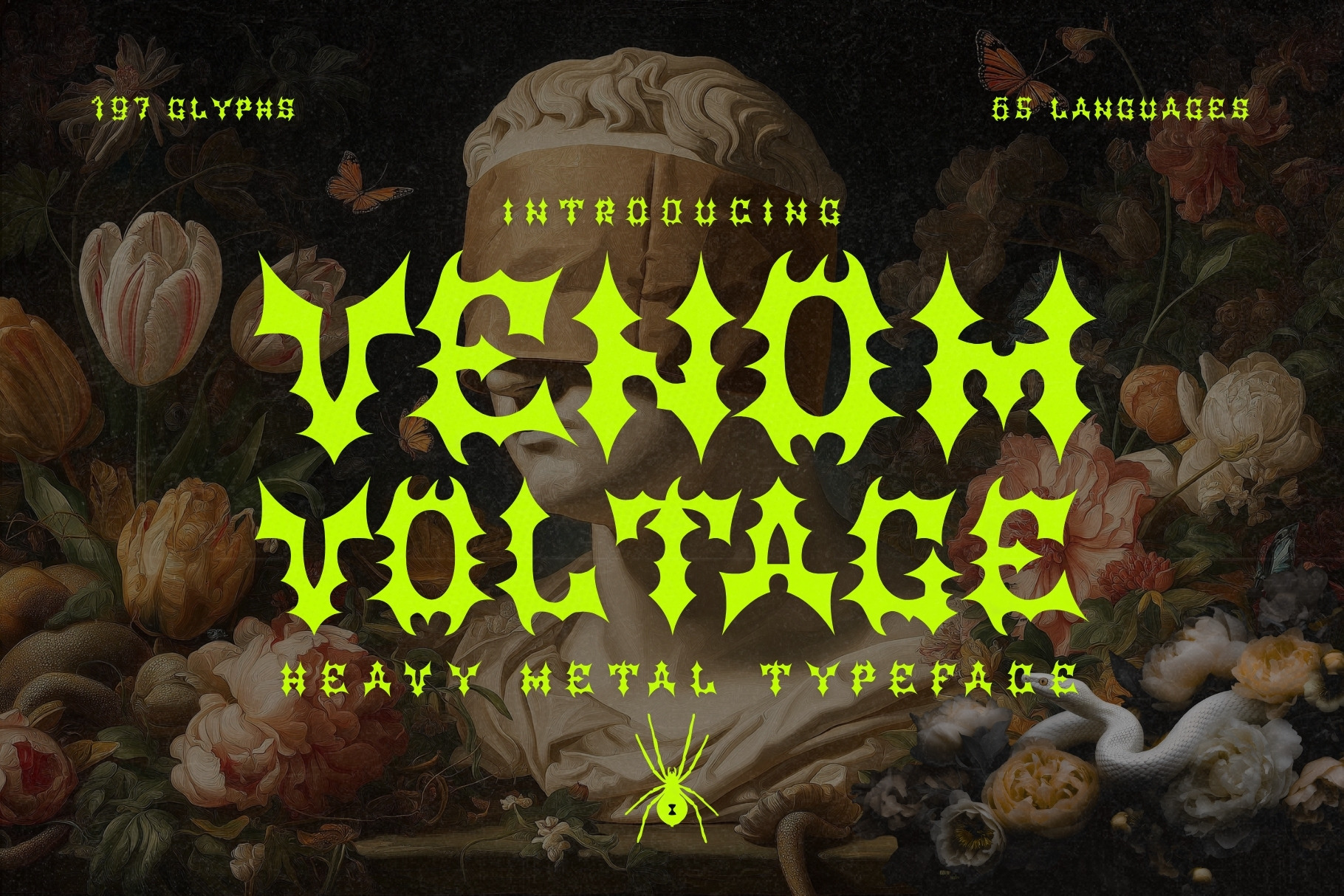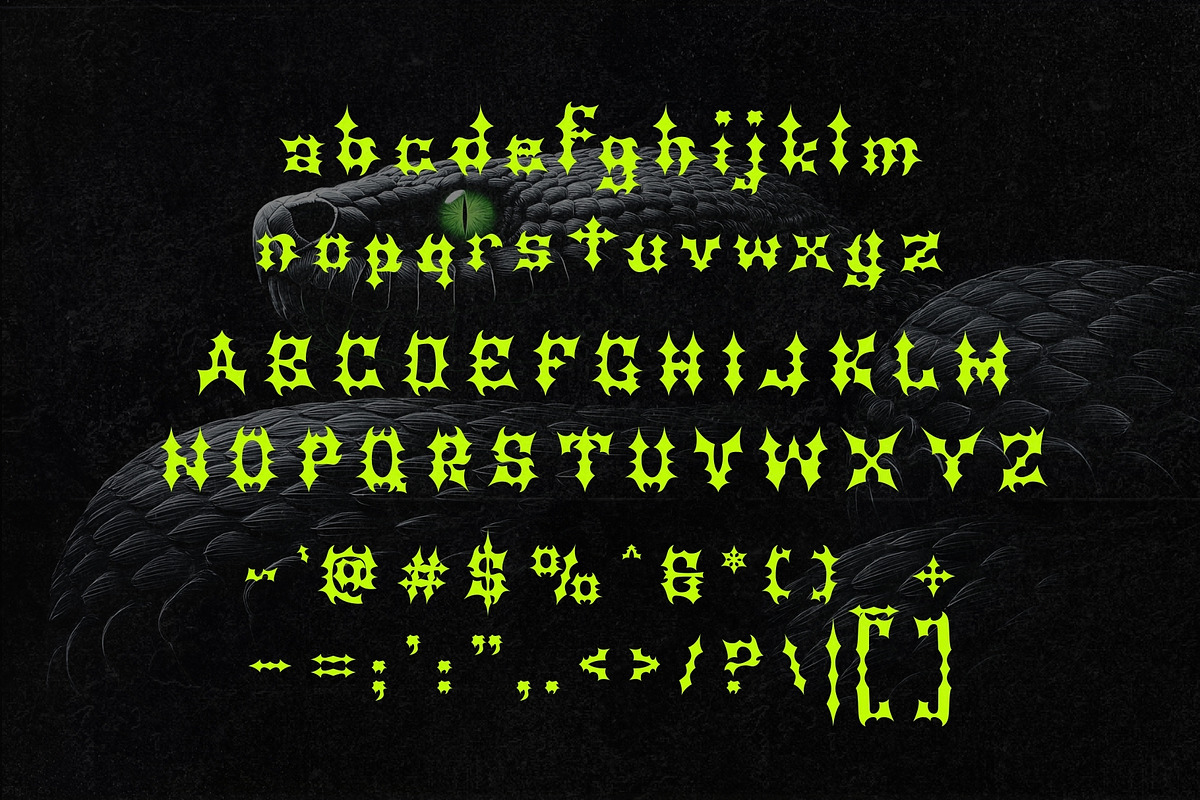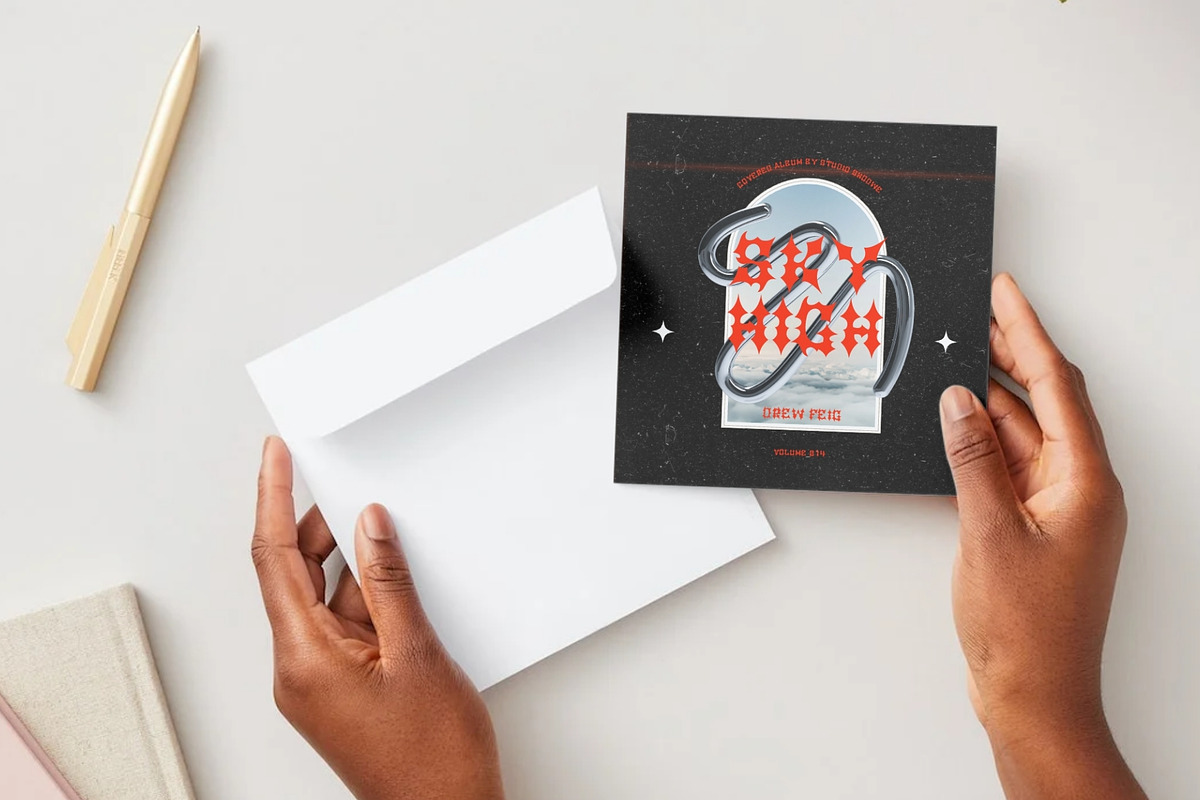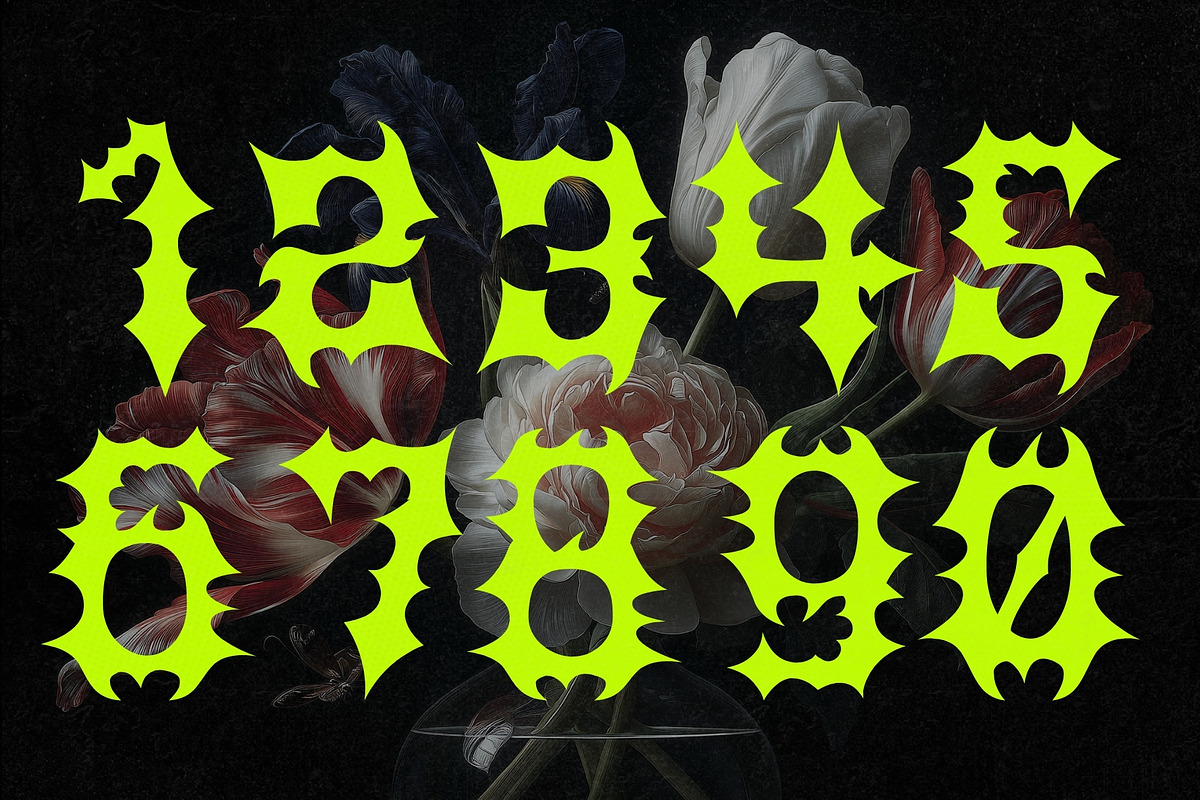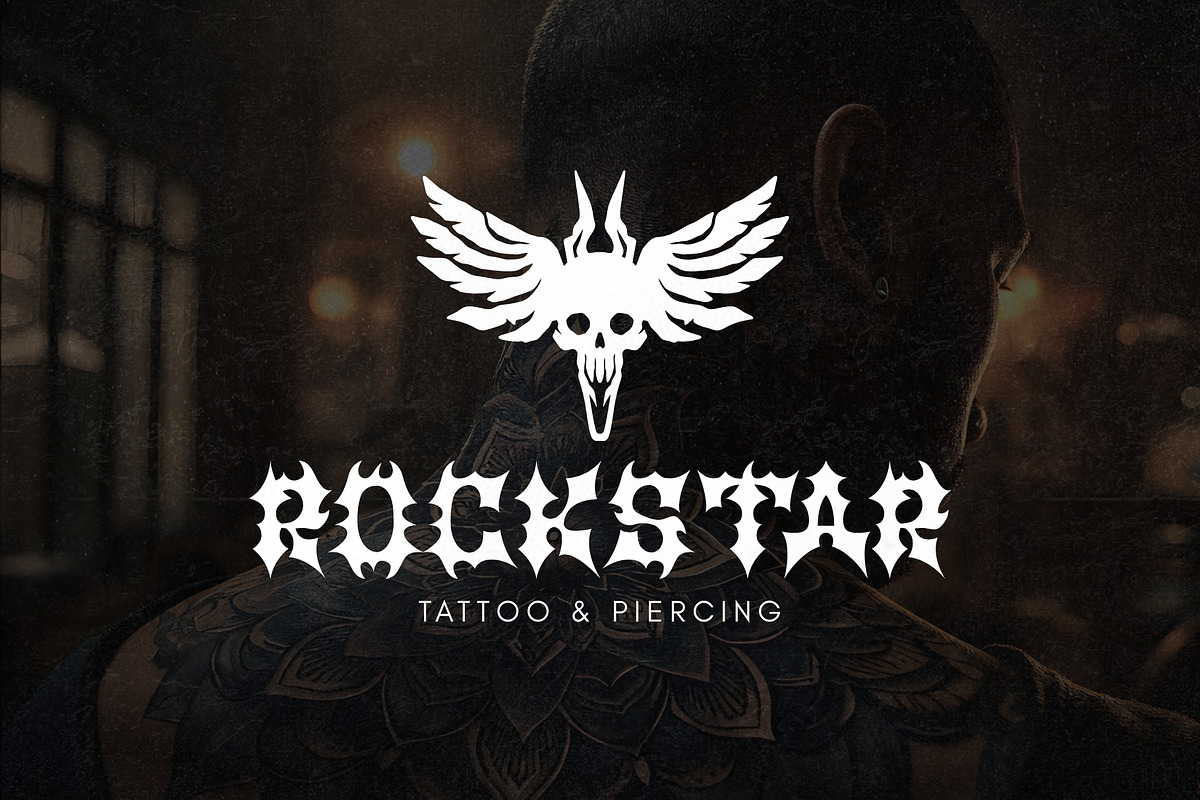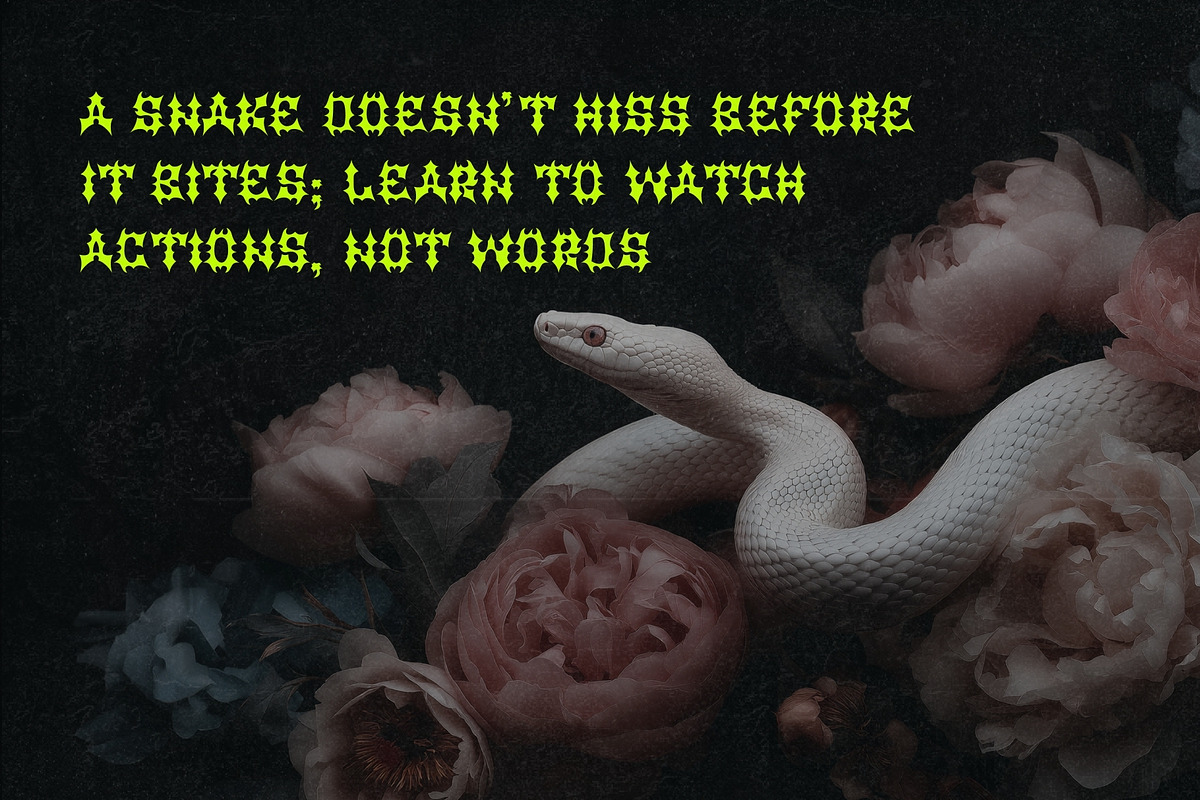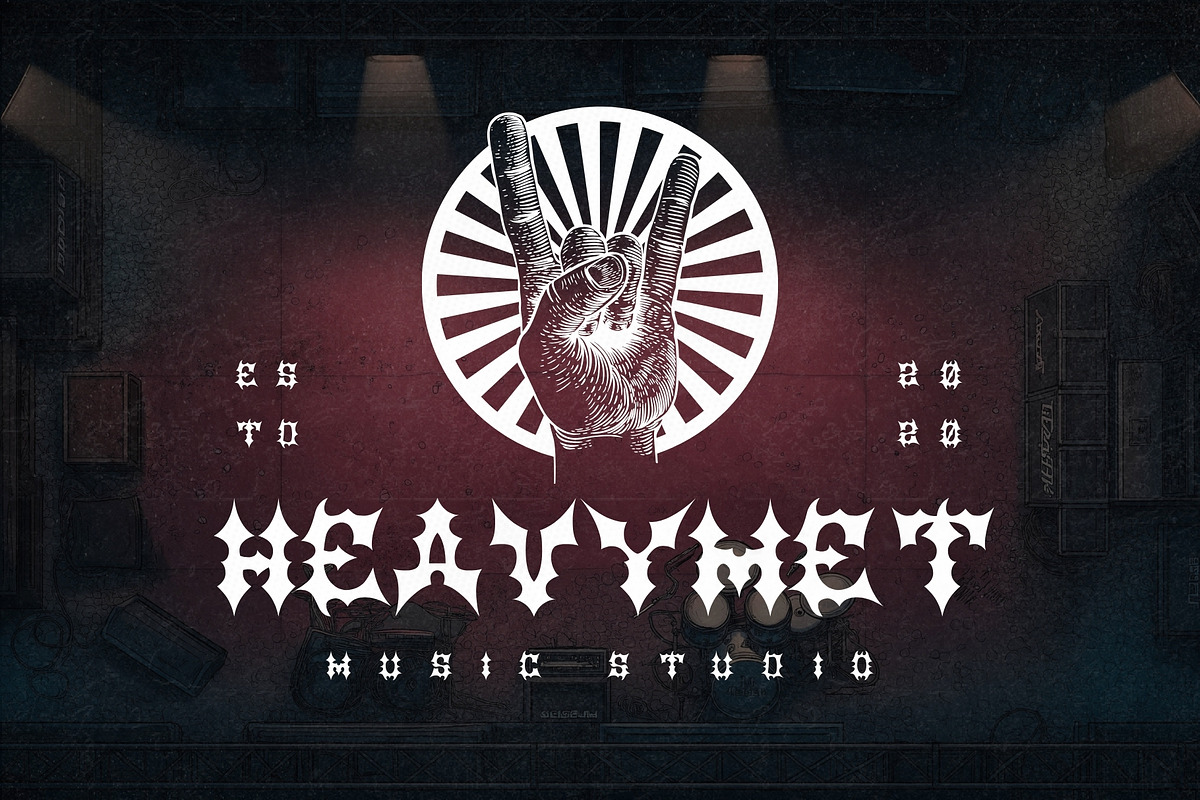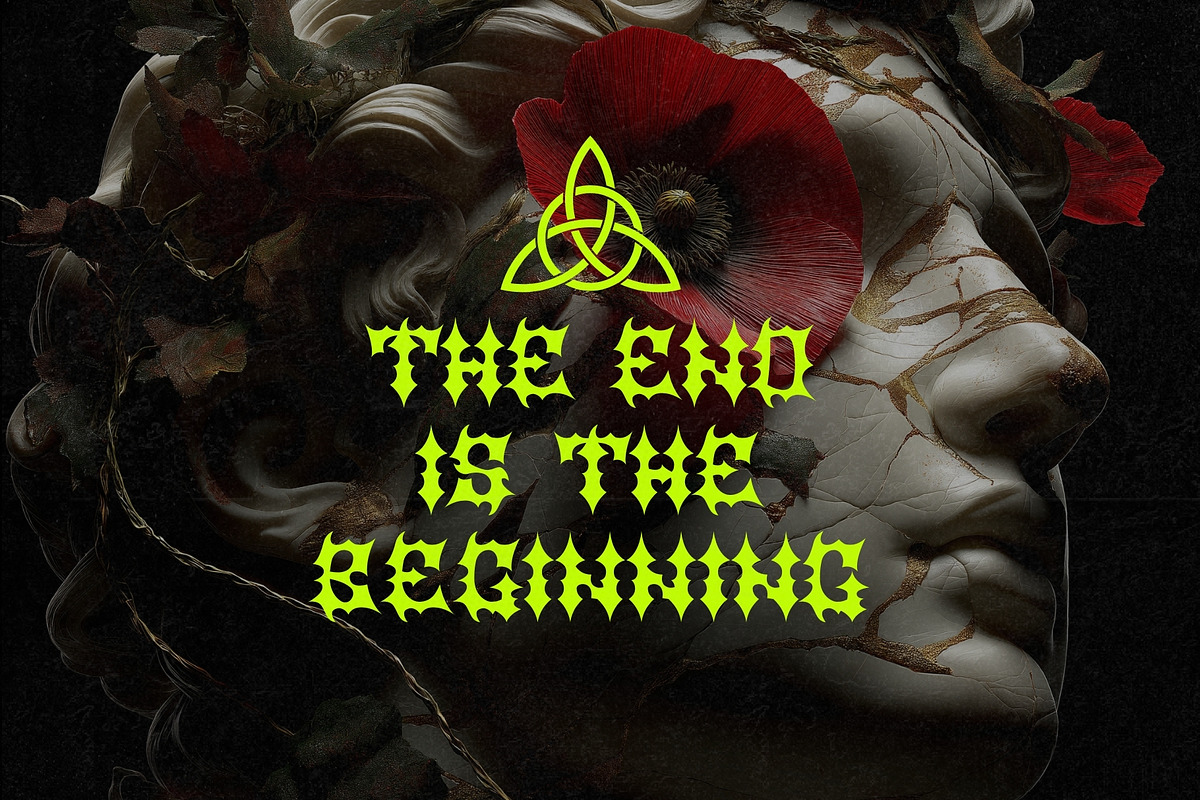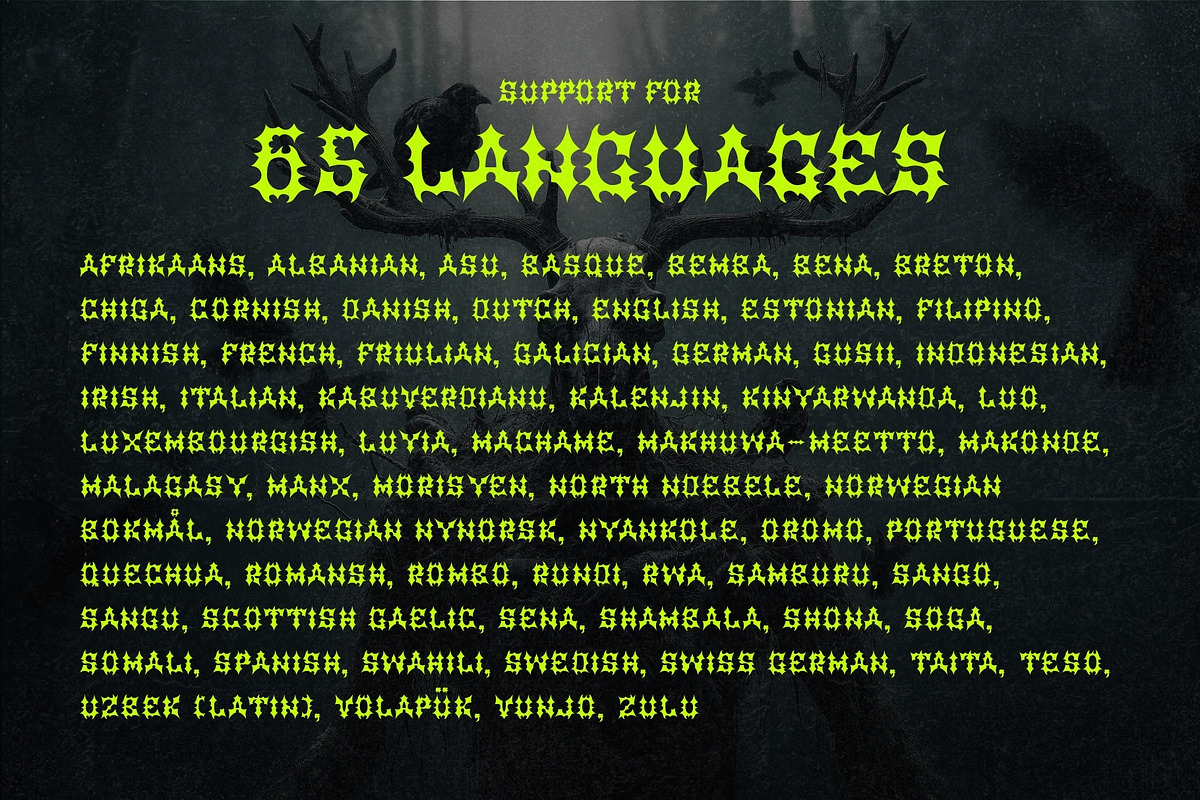
Venom Voltage - Heavy Metal Typeface
Venom Voltage is a heavy metal–inspired display typeface forged in the void between sound and fury. Built with razor-sharp edges, electrified strokes, and violently twisted forms, this font radiates raw aggression and otherworldly energy. It doesn’t sit quietly on the page — it tears through it.
Inspired by dripping ink, shattered steel, lightning fractures, and alien symbology, Venom Voltage embraces distortion as art. Its jagged letterforms feel alive — like they’re vibrating at full amp overload. Every glyph carries a chaotic rhythm, pushing legibility to the edge while delivering an unforgettable visual strike.
This isn’t clean. This isn’t safe. This is controlled destruction.
Metal & black metal band logos
Album covers & EP artwork
Horror movie posters
Dark fantasy book covers
Underground event flyers
Esports branding
Gothic apparel design
Ritualistic or occult visuals
Venom Voltage is for designers who don’t want subtle. It’s for those building worlds drenched in shadow, distortion, and rebellion. When you need typography that screams louder than the music — this is it.
It’s not just a font. It’s a voltage surge from the abyss.